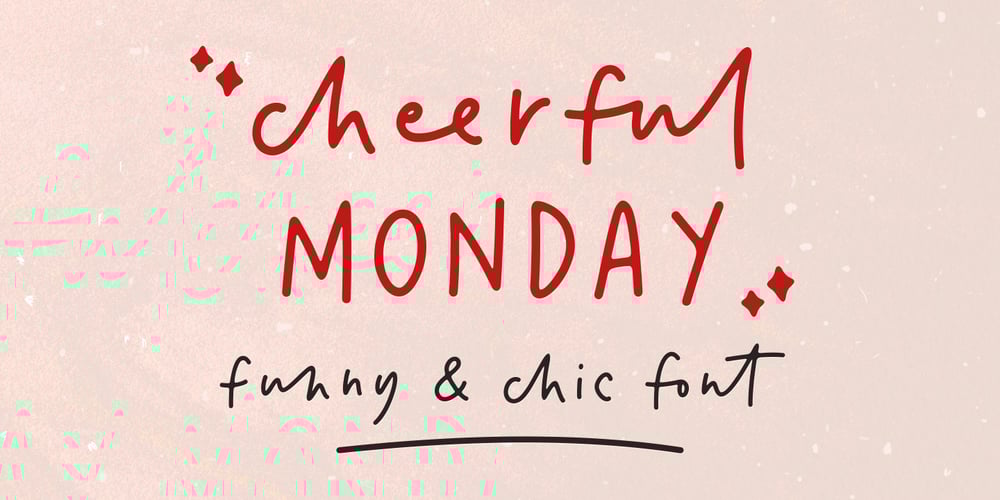
Cheerful Monday Font Family was designed by Nurul Fajri Redy and published by Redy Studio. Cheerful Monday contains 2 styles and family package options. So glad we found each other! Enjoy Cheerful Monday, a handwritten font that has 2 variations (regular and bold), and to enhance your hand-lettering we provide 72 ligatures as your choice to summarize the words/sentences made. Also equipped with doodles as a bonus. This is perfect for quote designs, quaint logos, clever packaging, signboards, greeting cards, merchandise designs, trending Instagram photos and so much more!Cheerful Monday features: A full set of upper & lowercase characters Numbers & punctuation 72 Gorgeous ligatures Lowercase alternate (doodles) Multilingual symbols PUA Encoded Characters – Fully accessible without additional design software. Feel free to give me a message if you have a problem or question. Thank you so much for taking the time to look at one of our products.